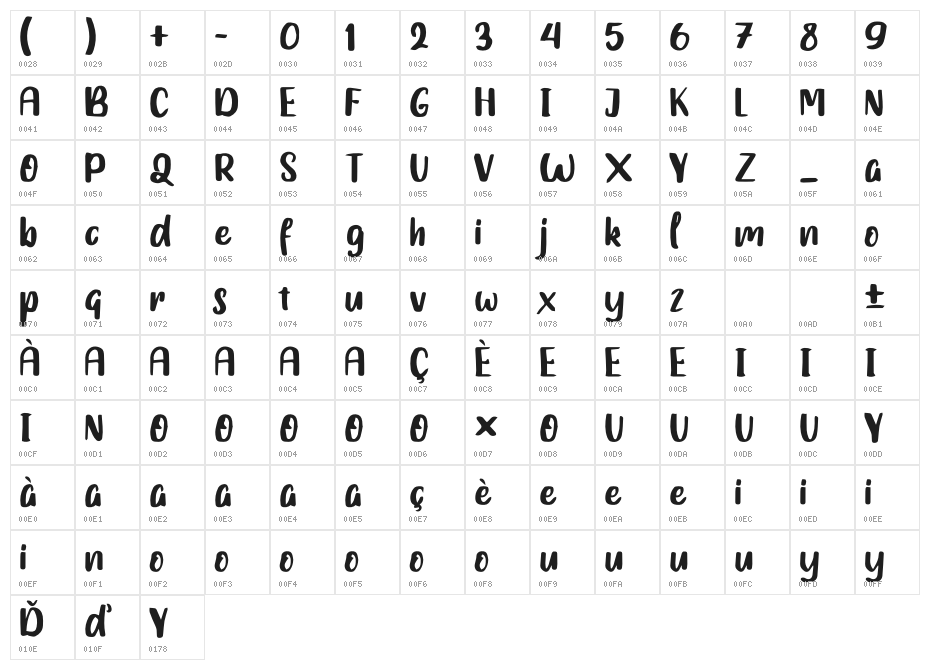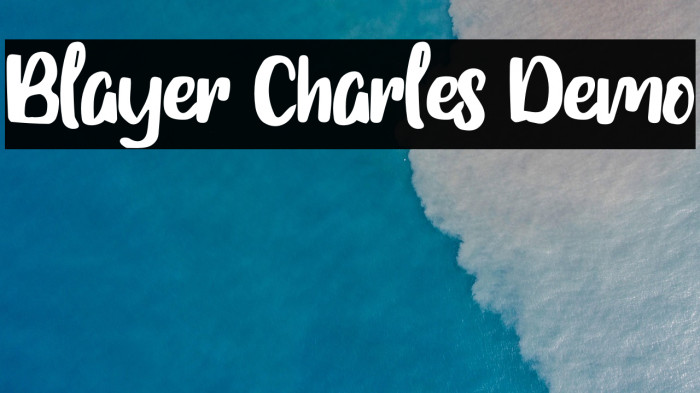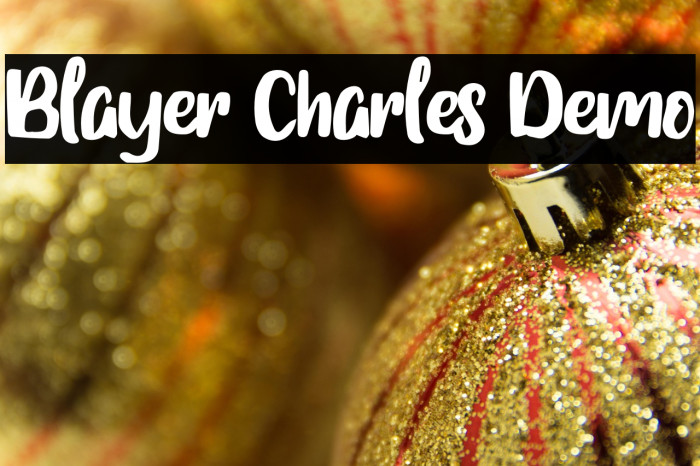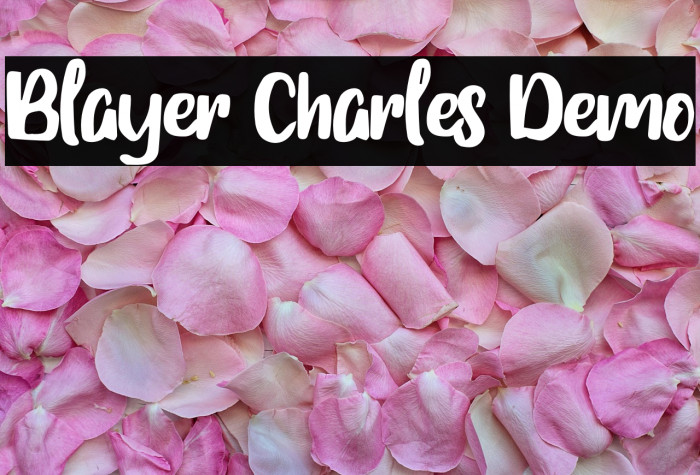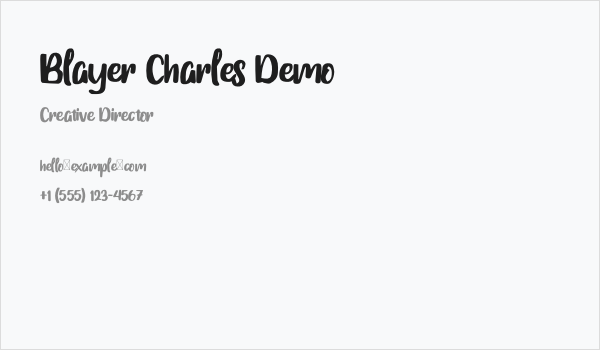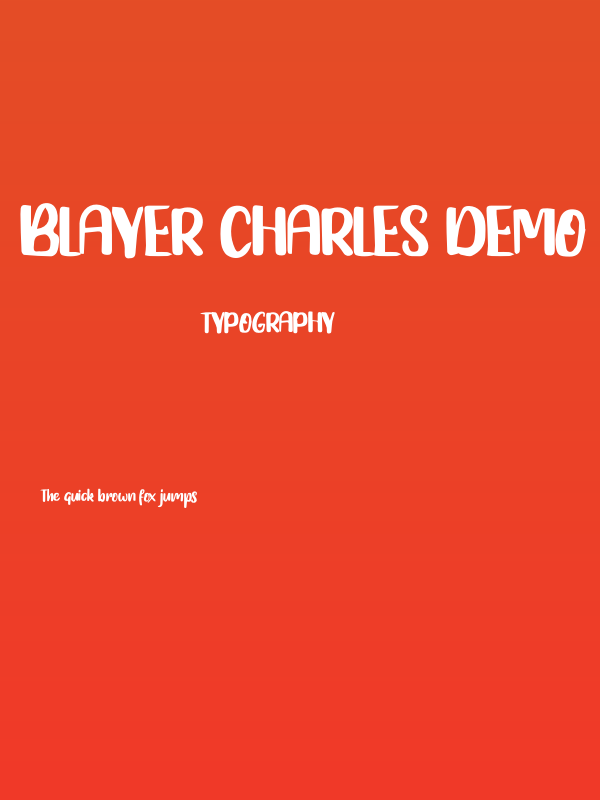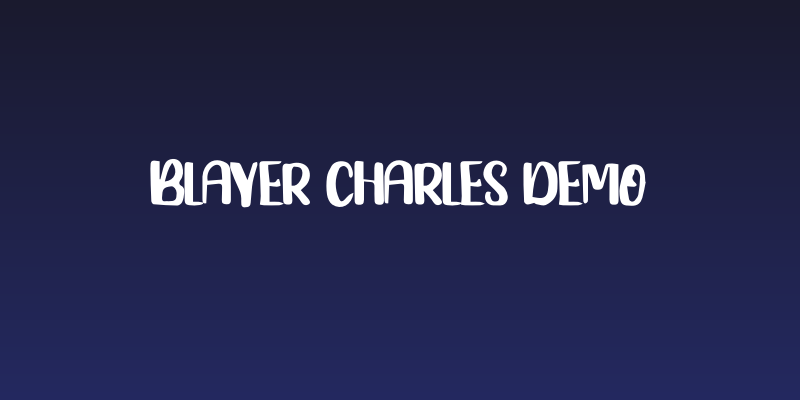
Blayer Charles Demo Font
Blayer Charles Demo Description
This font features a bold, playful style with a handwritten feel. The characters are rounded and have a smooth flow, giving a sense of movement and energy. The uppercase letters are bold and slightly condensed, while the lowercase letters maintain a consistent thickness, enhancing readability. The numbers are equally bold, matching the style of the letters. The font includes a set of special characters, adding versatility for various design needs. Its overall appearance is friendly and approachable, making it suitable for creative and informal projects.
| Overall Style | Playful, Creative |
| Use Case | Logos, Headlines, Informal Text |
| Proposed Projects | Ideal for children's books, playful branding, greeting cards, and social media graphics. |